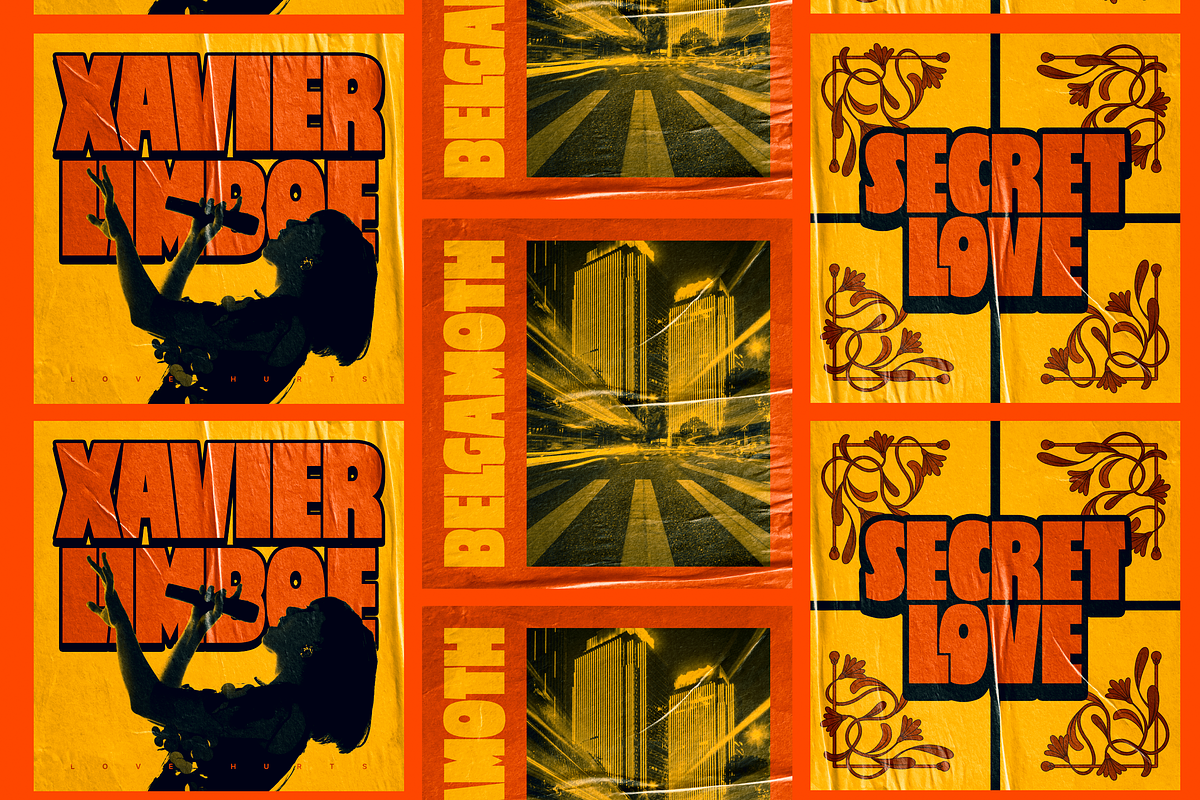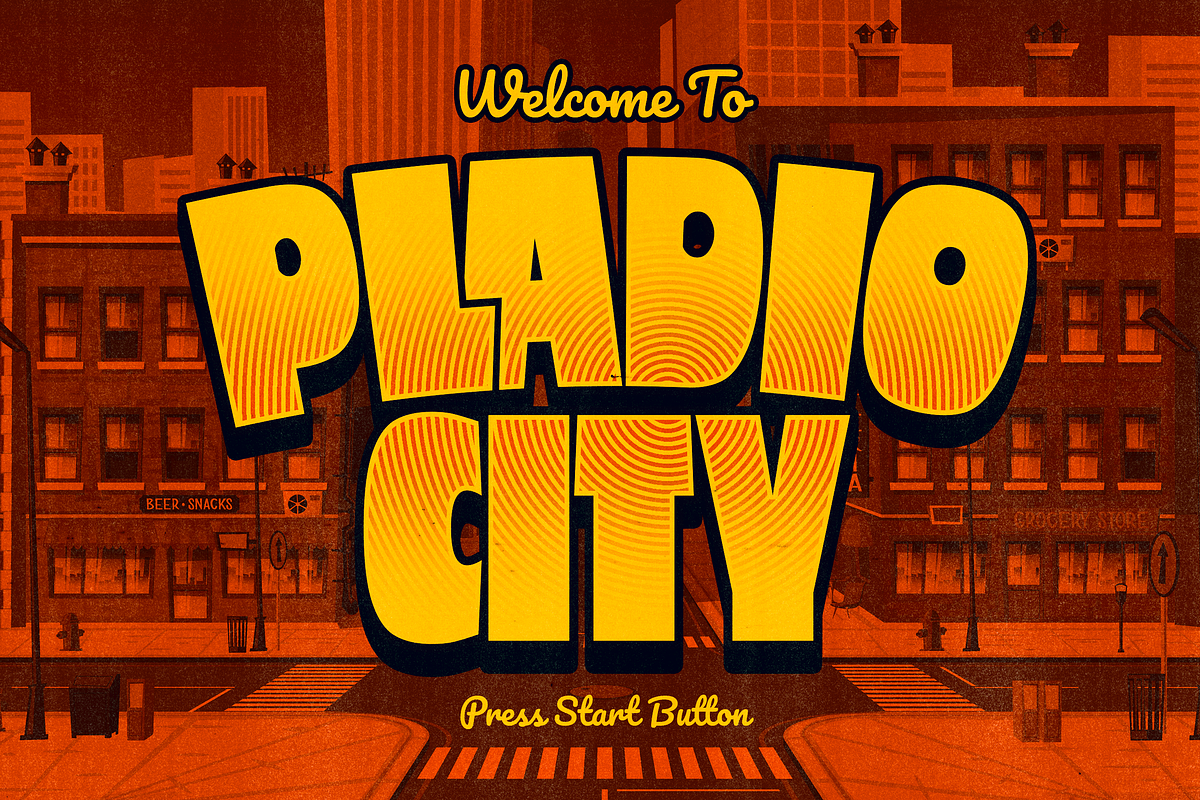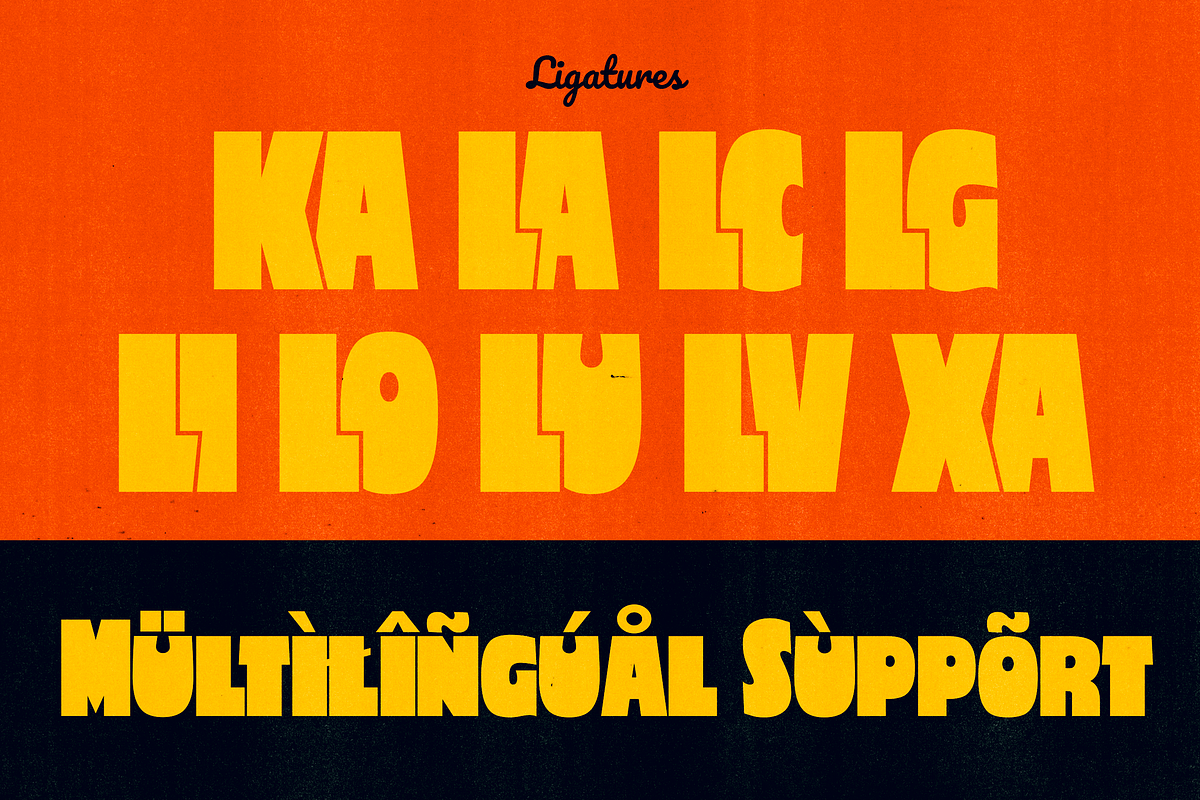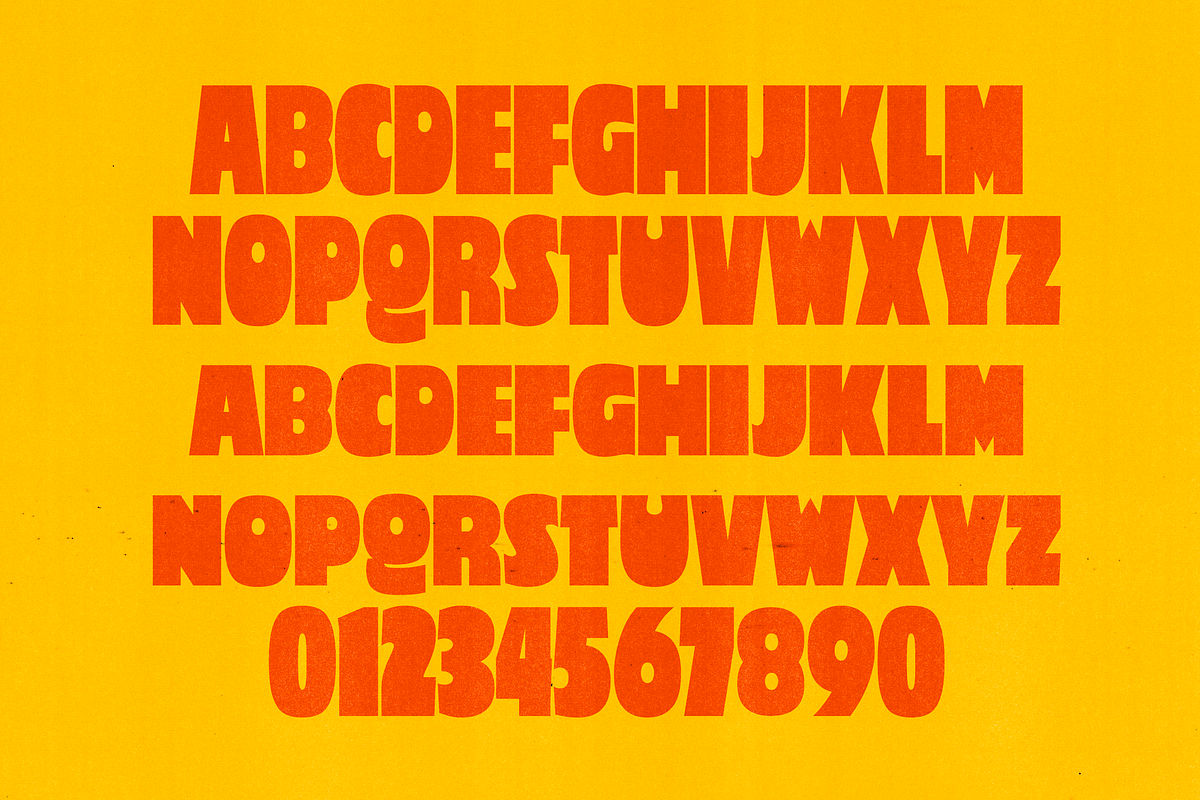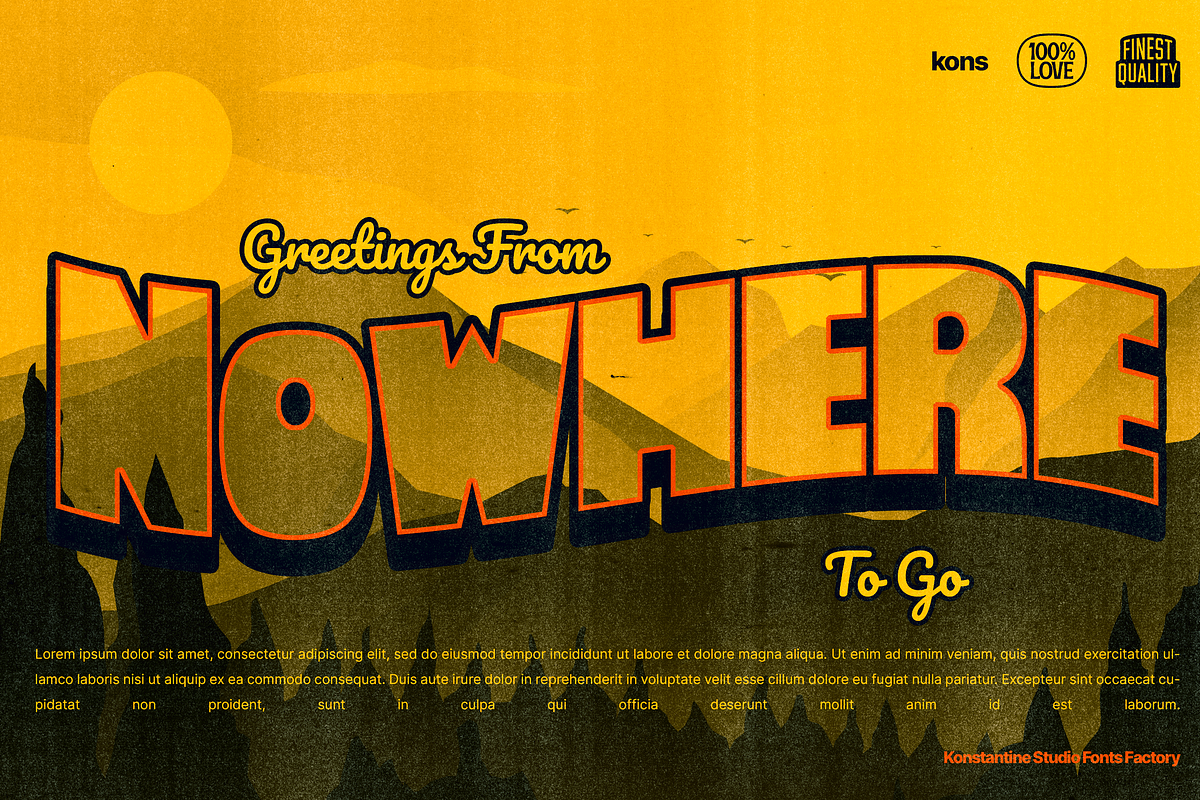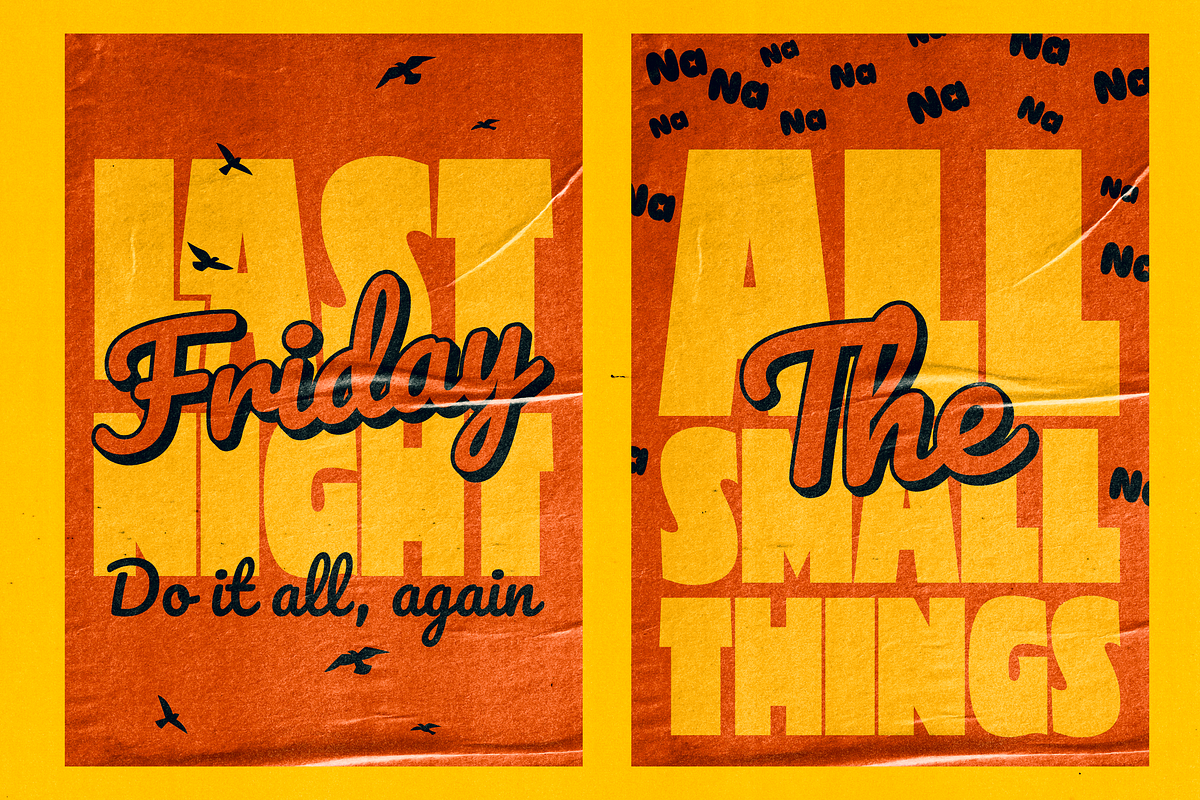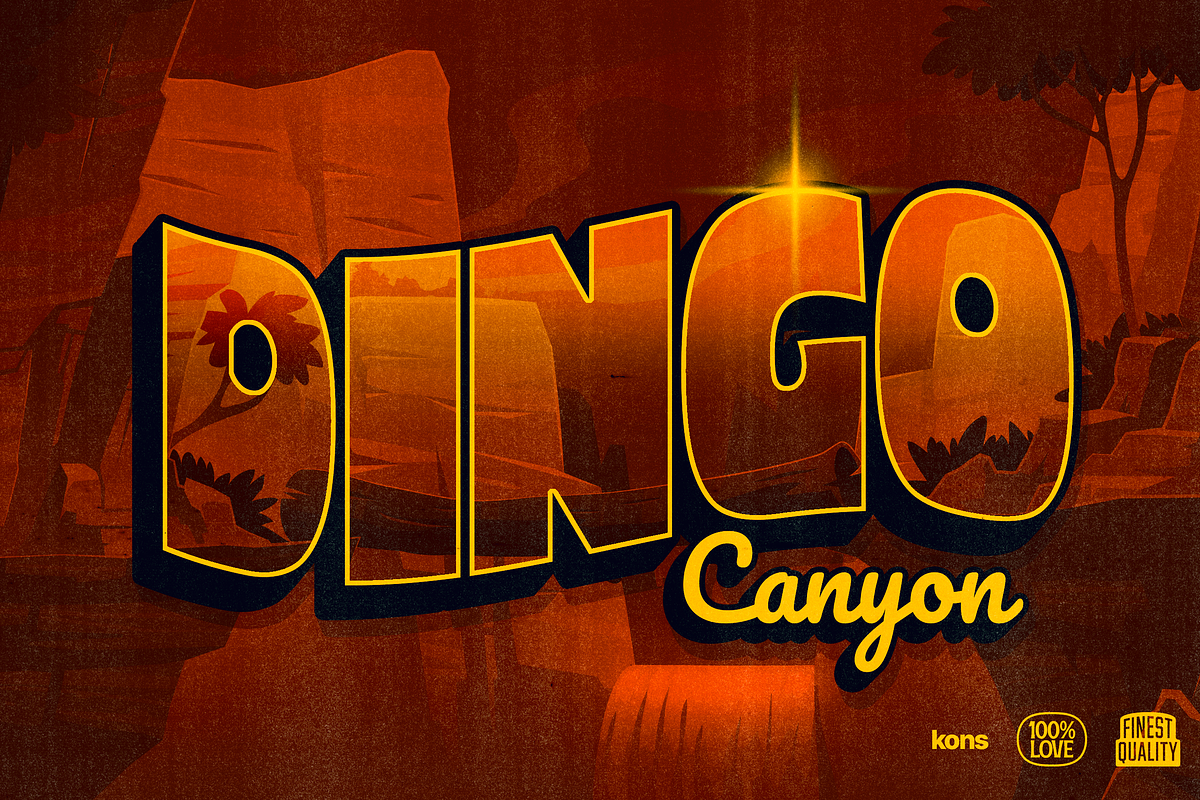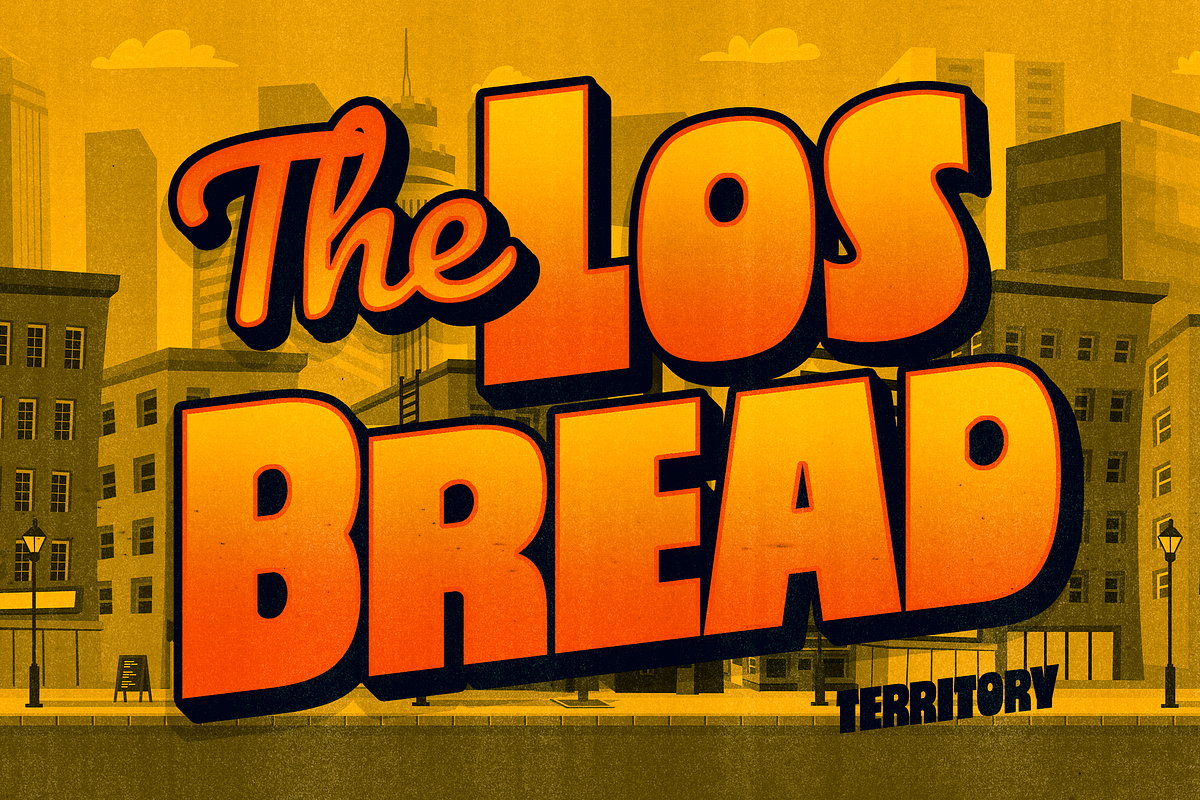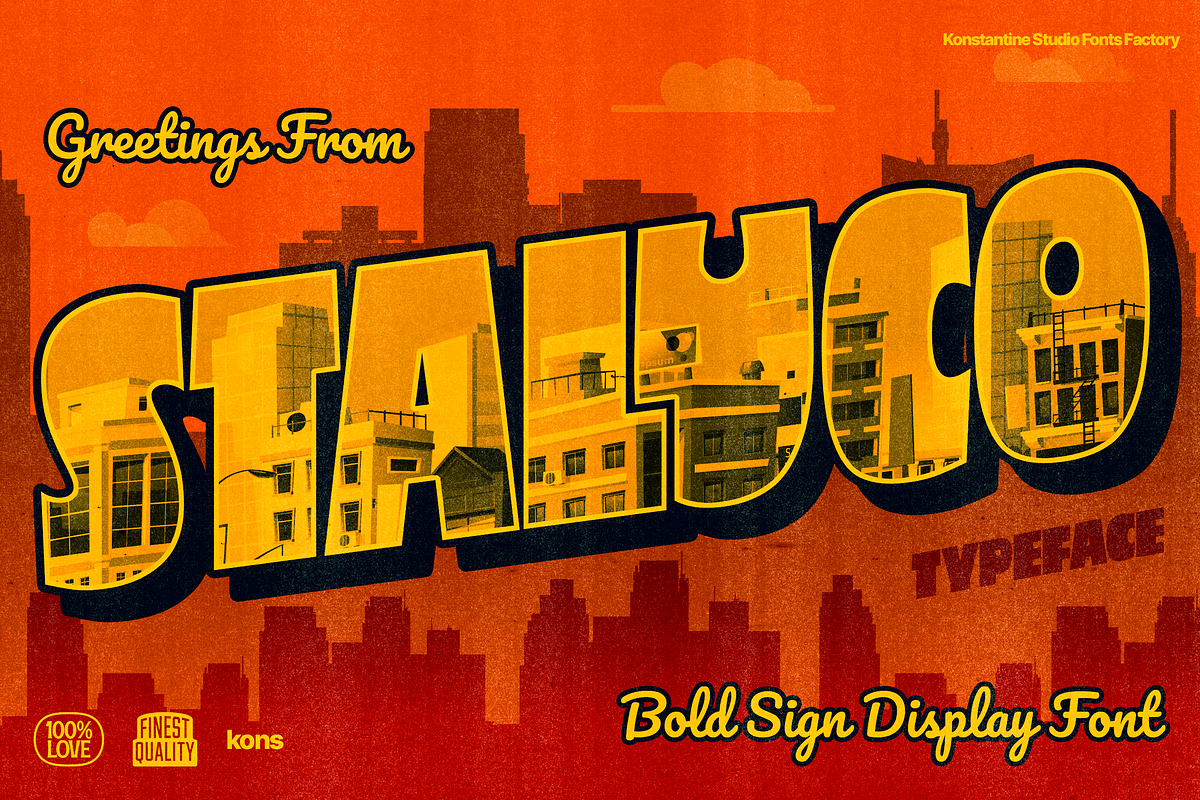
Staluco - Bold Sign Display Fonts
Jump back to the classics with Staluco - A bold sans-serif font inspired by vintage greeting cards and town signs in the 70s 80s era. This font captures the vibes and sense of going-home and childhood-like spirits from your grandparent's house.
Perfectly fit for logo, a town sign, branding, poster, clothing, merchandise, music project, books, greeting cards, street, and urban culture concepts, you name it.